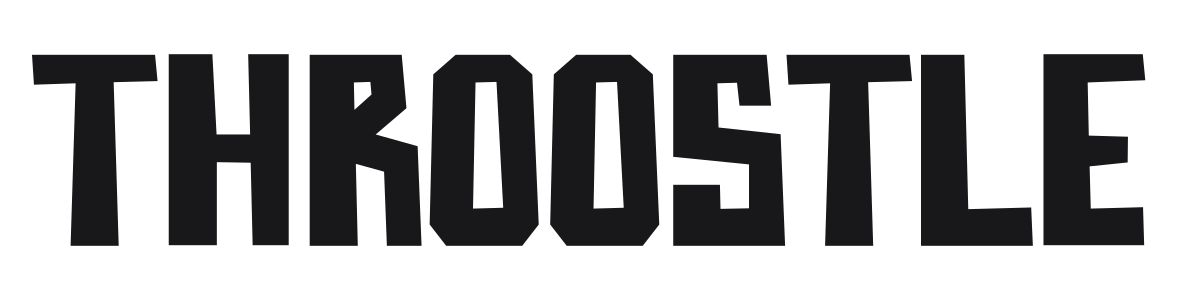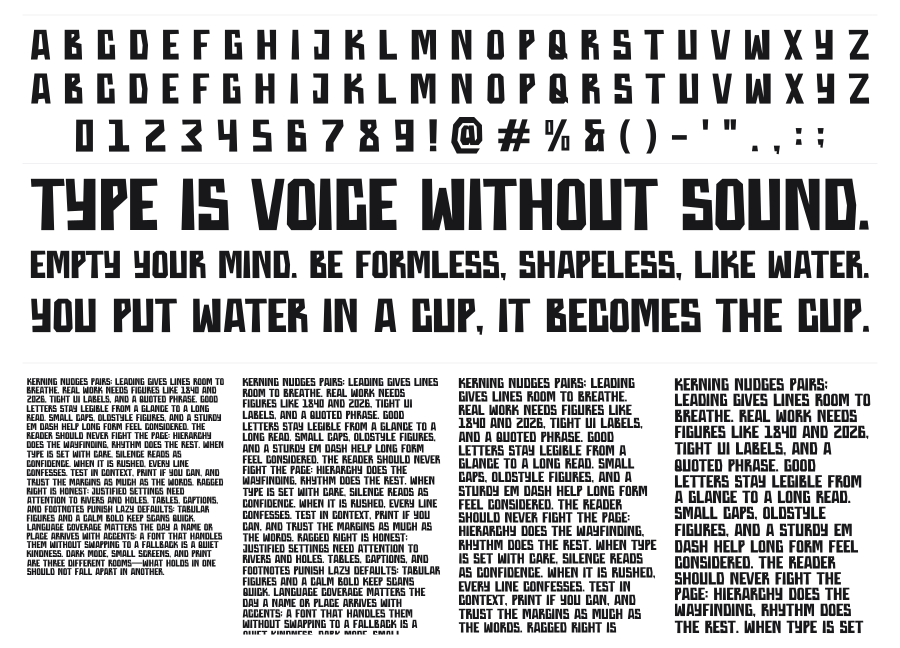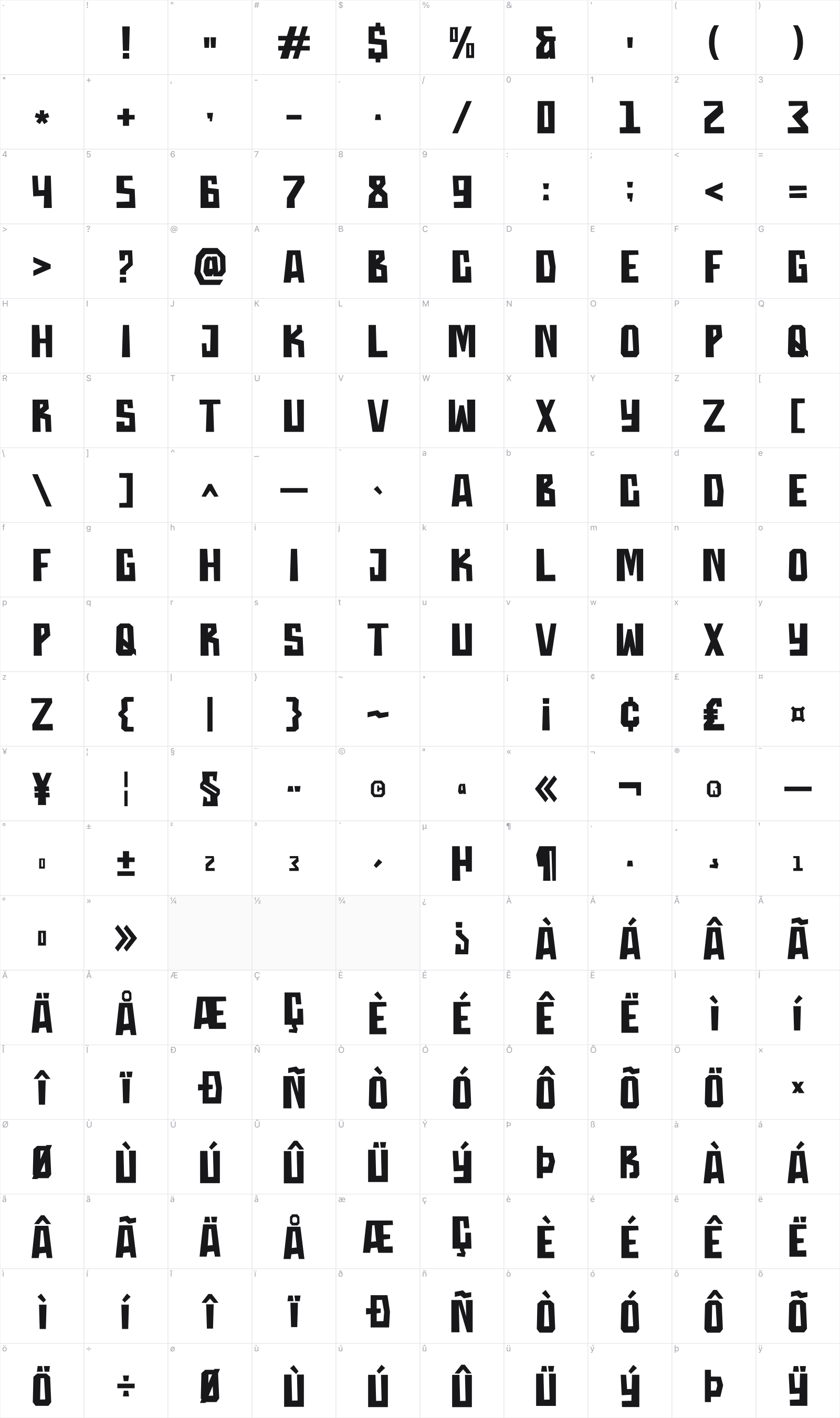
Throostle
Throostle is a heavy condensed sans with angular cuts and notched incisions carved into its blocky strokes. The compressed proportions and fractured details push it firmly into industrial, street, and metal territory. A strong choice for posters, album covers, and apparel graphics that need raw impact.